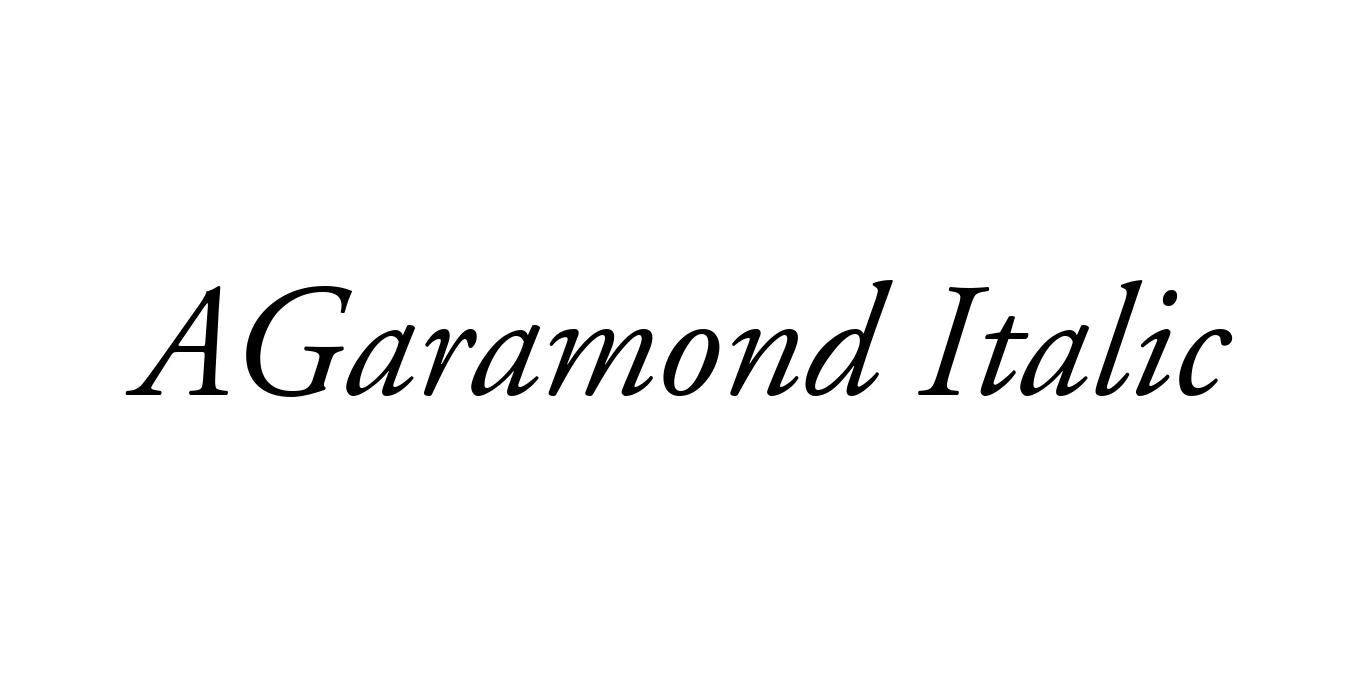
AGaramond Italic
Designed by Robert Slimbach
AGaramond Italic is a cornerstone of digital typography, released by Adobe in 1989. It was meticulously designed by Robert Slimbach, who drew inspiration from the legendary 16th-century punches of Claude Garamond. While the Roman weights reflect Garamond's work, the italic cuts are beautifully modeled after the types of Robert Granjon, creating a harmonious and historically accurate typeface family that bridges the gap between Renaissance tradition and modern digital needs.
As an Old Style serif, AGaramond Italic is celebrated for its elegance, readability, and classic proportions. It features a moderate contrast between thick and thin strokes and a distinctively graceful slant that makes it a favorite for high-end book publishing and editorial design. Its enduring popularity stems from its ability to provide a sophisticated, authoritative voice without sacrificing legibility, making it a staple for professional typographers worldwide.
AGaramond Italic Best Uses
Ideal for body text in novels and academic books due to its high readability.
Perfect for logos and identity systems that require a sense of heritage and sophistication.
Adds a touch of class and formality to wedding stationery and high-end event programs.
Excellent for pull quotes and feature headlines in premium magazine layouts.